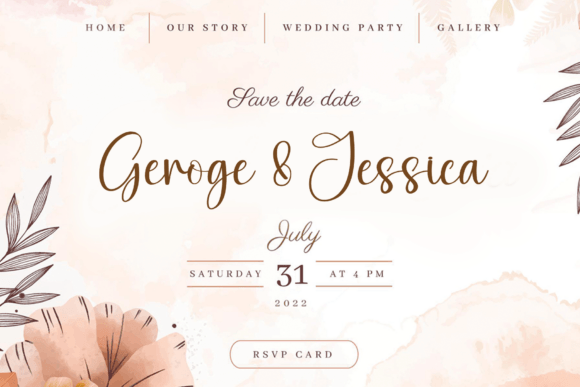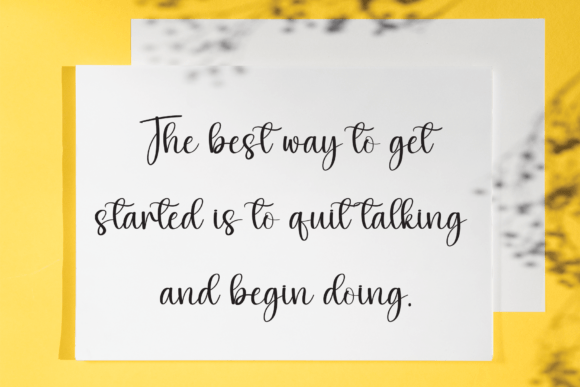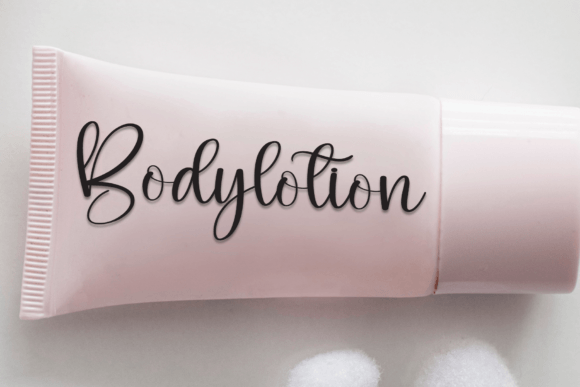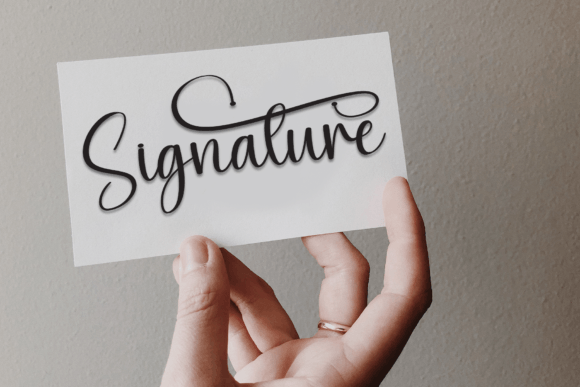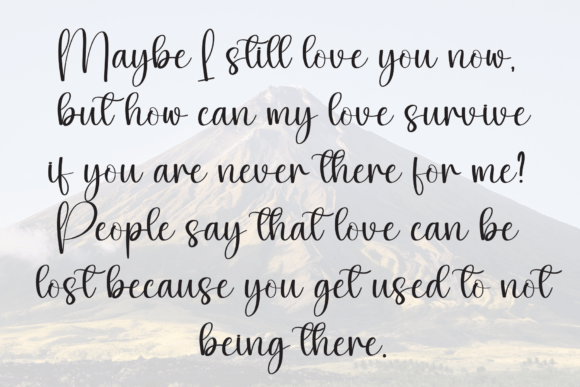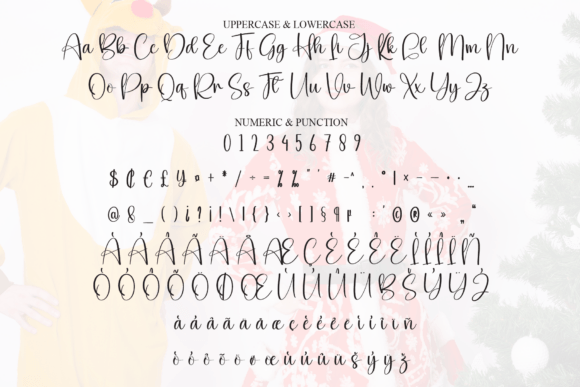
Introduction to Christmas Costume Font
As designers, we’ve all been there – staring at a blank canvas, searching for the perfect font to bring our creative project to life. The search can be daunting, especially when you’re looking for a high-quality font that exudes elegance and sophistication. But what if I told you that you’ve stumbled upon the perfect solution? Say hello to the enchanting Christmas Costume Font, a free download that’s sure to elevate your designs to the next level.
This beautiful script font features smooth, flowing letterforms and a handcrafted feel that’s reminiscent of traditional calligraphy. Whether you’re working on a wedding invitation, a logo, or a social media campaign, the Christmas Costume Font adds a touch of charm and sophistication to any project. With its transparent background, you can easily overlay it on any image or design element, making it a versatile design resource that’s perfect for any creative endeavor.
Key Features of Christmas Costume Font
- High-quality design resource ideal for creative projects, including holiday greeting cards, festive posters, and seasonal advertisements.
- Unique Christmas-themed characters and symbols, making it perfect for adding a festive touch to your design project.
- Includes a wide range of characters, including uppercase and lowercase letters, numbers, and special symbols, ensuring you have everything you need for your creative project.
Honest Review: Christmas Costume Font
I recently had the opportunity to work with the Christmas Costume Font, and I’m excited to share my honest review. As a designer, I’m always on the lookout for high-quality design resources that can elevate my creative projects. This font definitely fits the bill.
Here’s what works well: ✨ The font is incredibly versatile, with a wide range of characters and symbols that can be used to create festive and fun designs. The transparent background makes it easy to layer with other graphics and images. The font is also super easy to customize and manipulate, which is a huge plus for designers who like to get creative.
Overall, I’m really impressed with the Christmas Costume Font. It’s a great resource for designers who are working on seasonal or holiday-themed projects. The high quality and versatility of the font make it a must-have for anyone looking to add some festive flair to their designs.
- Easy to customize and manipulate
For optimal results, use the Christmas Costume Font in conjunction with other design elements, such as festive graphics and colors. Experiment with different font sizes and styles to add visual interest to your design.
The Christmas Costume Font is perfect for various creative projects, including:
- Holiday cards and invitations
- Festive social media posts
- Christmas-themed presentations and documents
- Illustrations and graphics